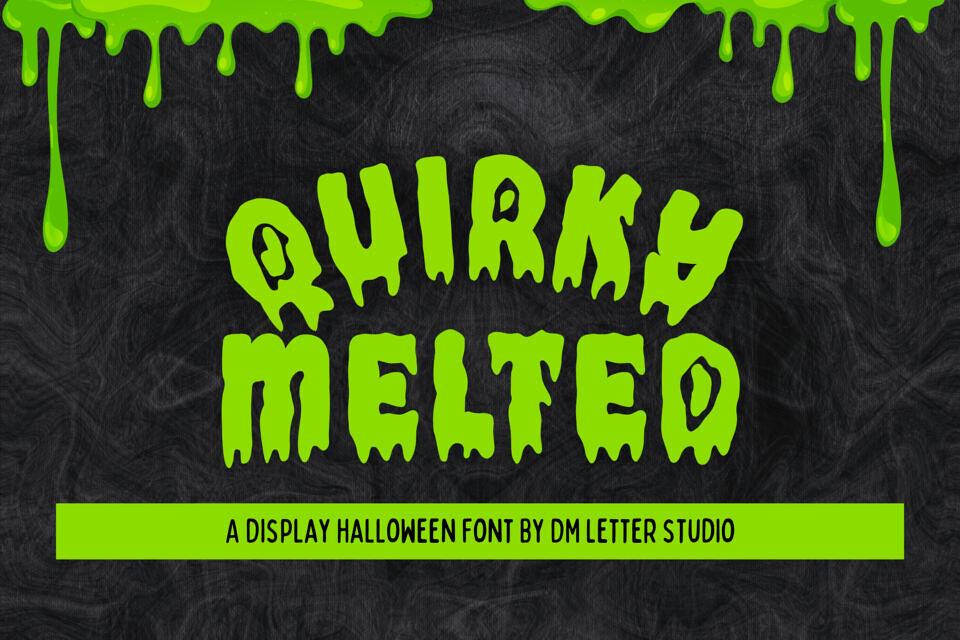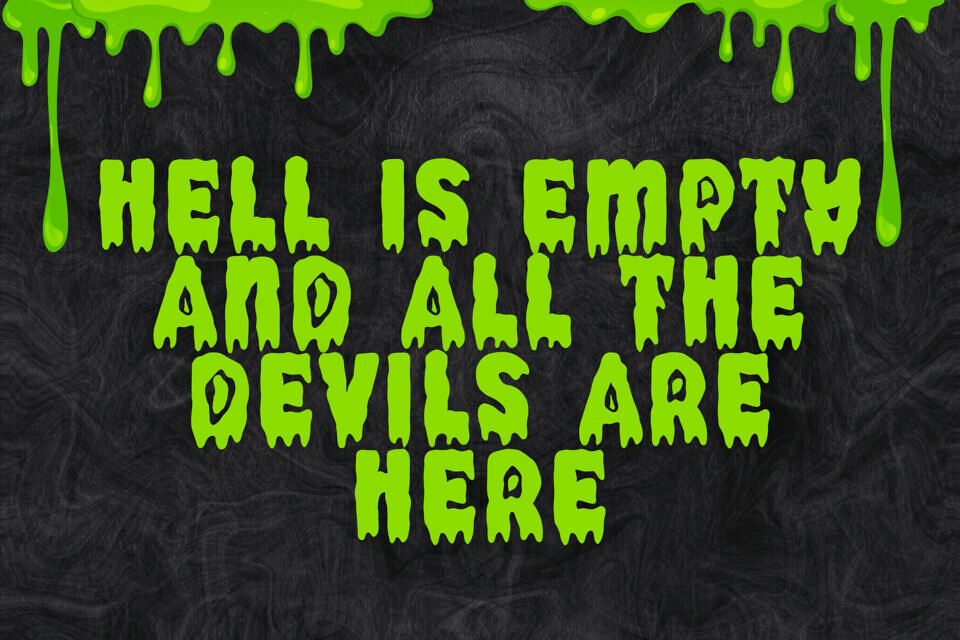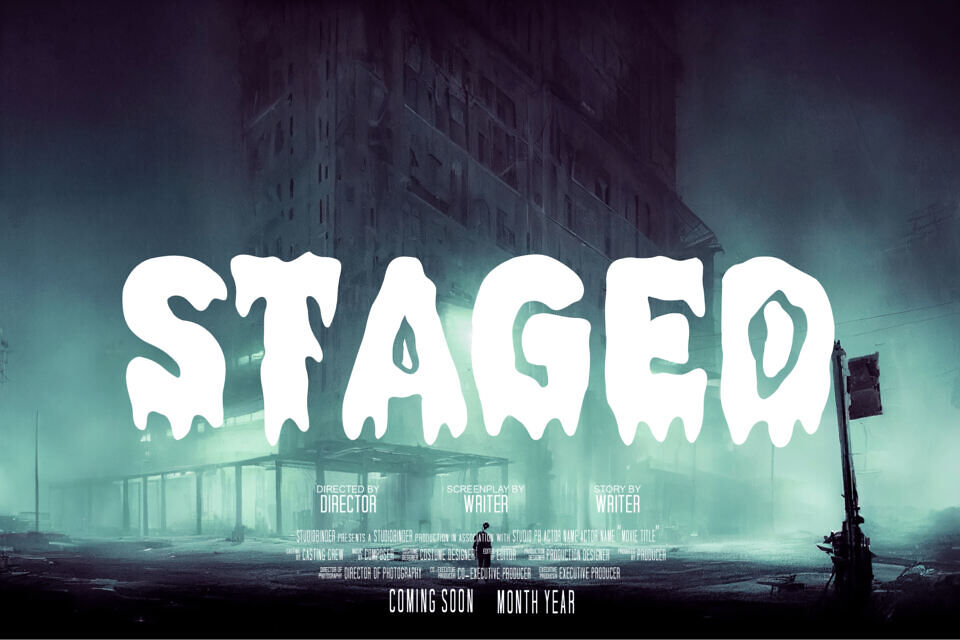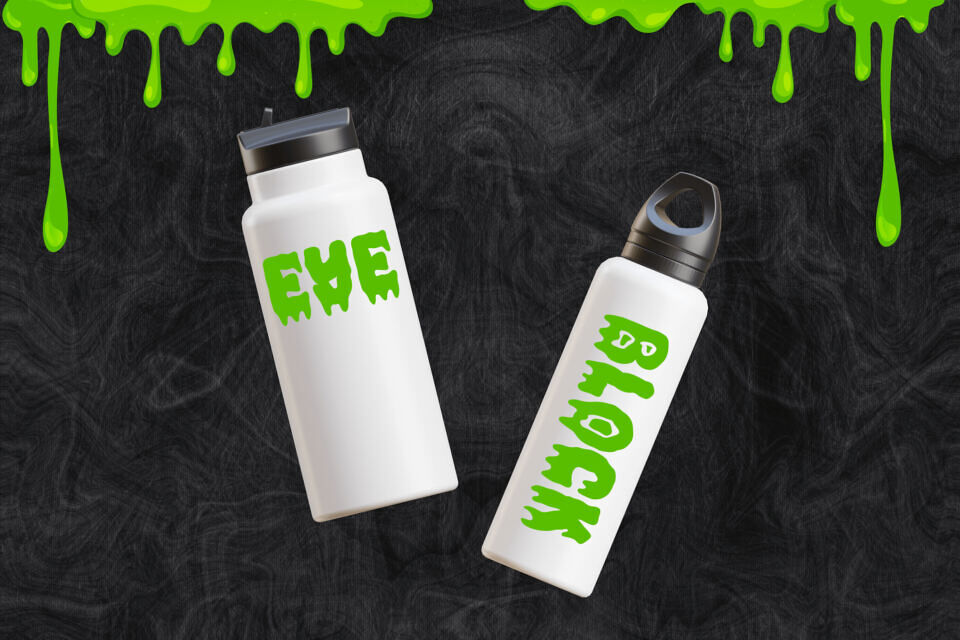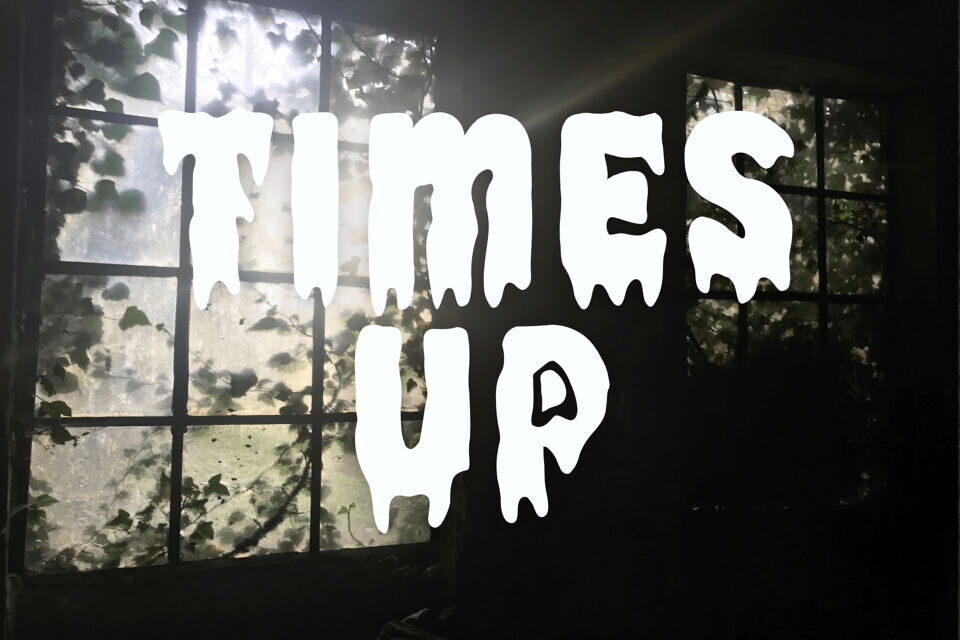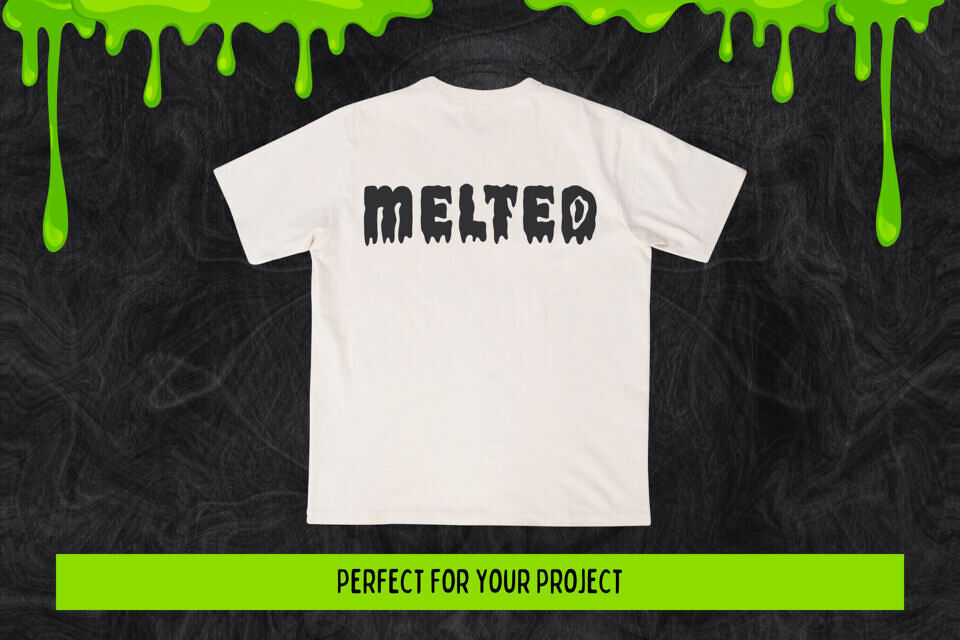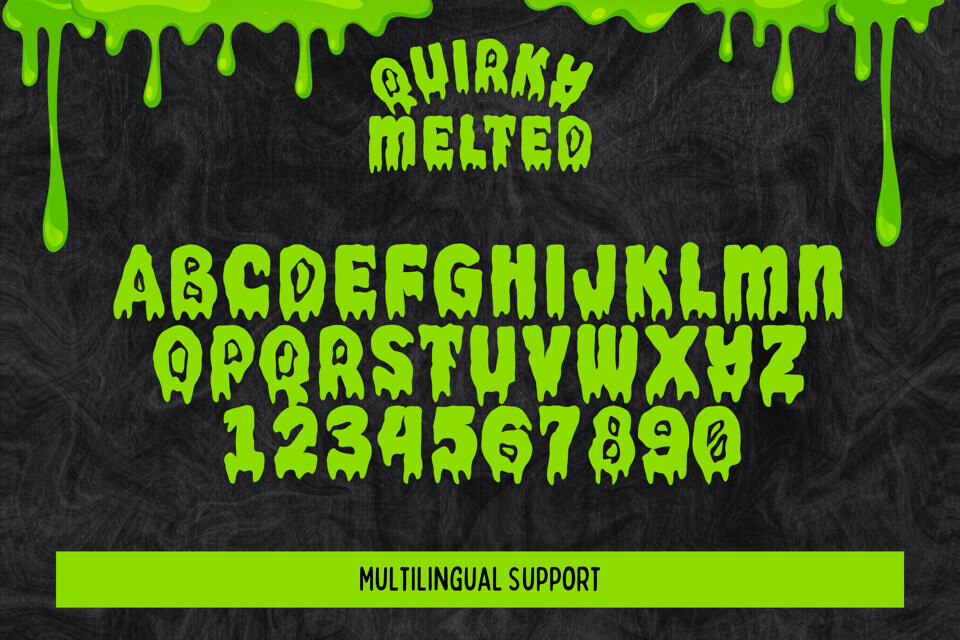
Quirky Melted is a fun and slightly spooky display font with gooey, melting letterforms. This font adds a lighthearted twist to eerie designs, making it perfect for Halloween events, creepy-cute branding, kids’ spooky crafts, and playful seasonal packaging. Its quirky drip style strikes a balance between fun and fright.